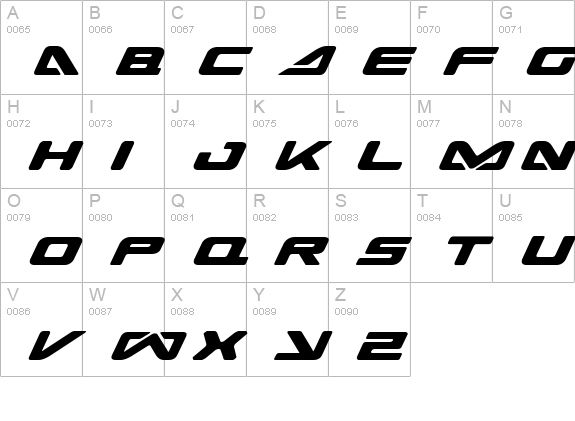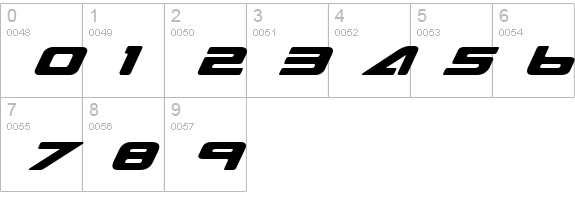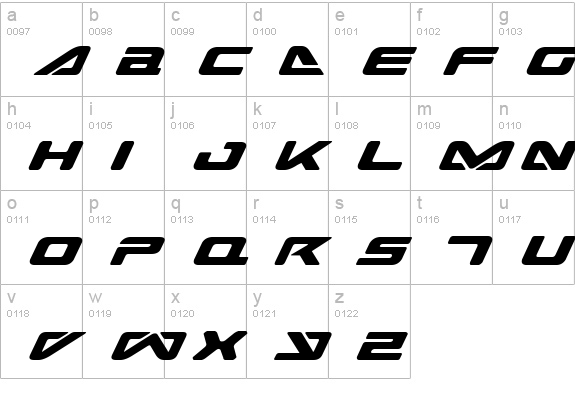
Sea Dog 2001 Italic is a distinctive, italic variant in the Sea typeface family \xE2\x80\x94 well suited to design and typography projects.
Sea Dog 2001 Italic is a stunning and dynamic font that will bring a touch of nautical charm to any project. With its bold, slanted strokes and graceful curves, this font captures the essence of the high seas. Whether you're designing a logo for a maritime business, creating a poster for a sailing event, or adding a stylish touch to your personal blog, Sea Dog 2001 Italic is the perfect choice. This font exudes a sense of adventure and freedom, taking inspiration from the fearless sailors who once roamed the open waters. The italicized design adds an extra dash of elegance, making Sea Dog 2001 Italic a versatile font that can be used for both bold headlines and delicate typography. What makes Sea Dog 2001 Italic even more appealing is that it is freely available to download at FontsMarket.com. You can bring this stunning font into your creative projects without any cost, adding a touch of sophistication and uniqueness to your designs. Don't let anything hold you back from unleashing your creativity – Sea Dog 2001 Italic is here to set your designs free.